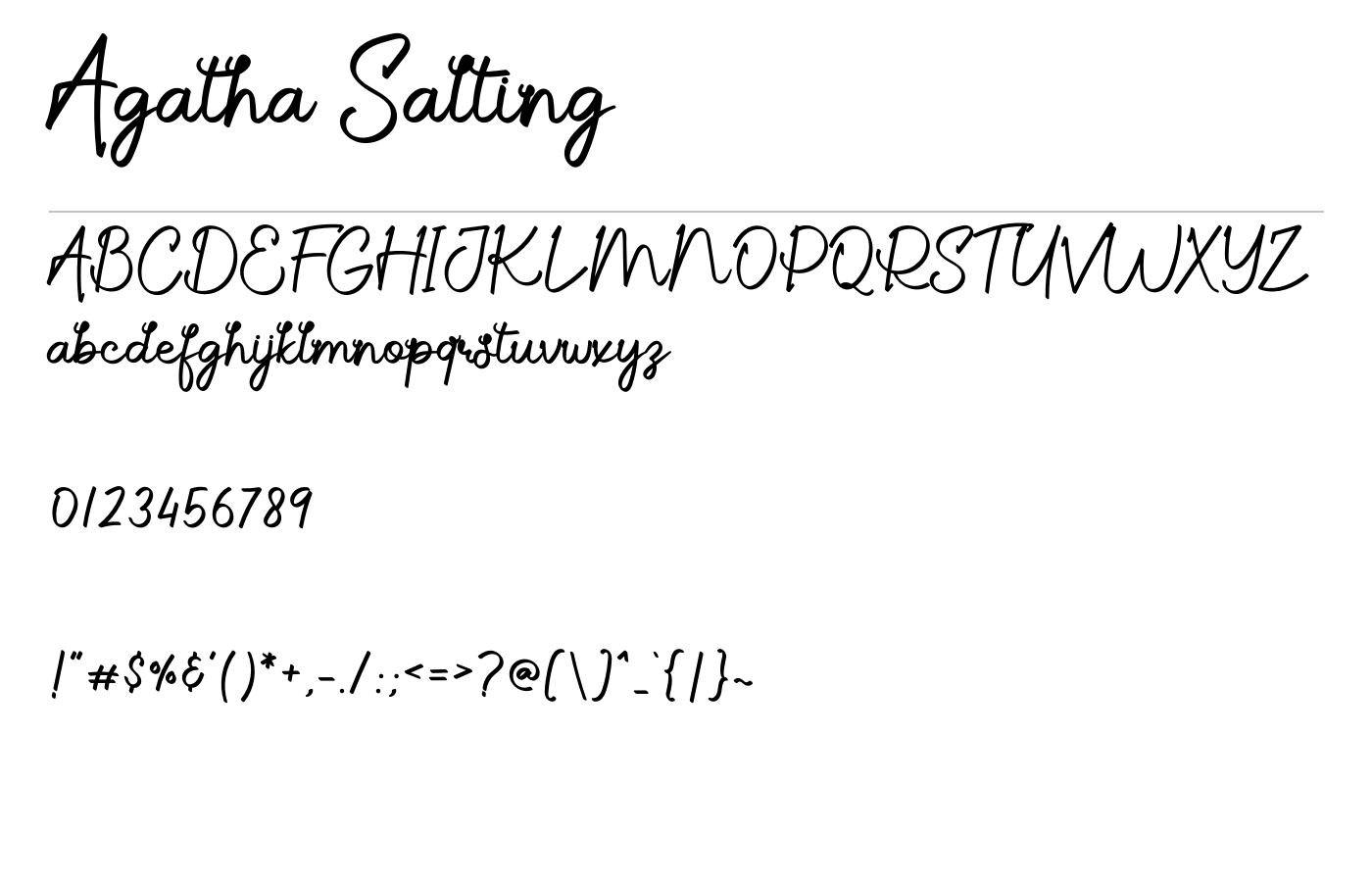
Agatha Salting is a graceful script font with a casual, handwritten feel that combines elegance with warmth. Its slender strokes and playful letterforms make it perfect for personal branding, invitations, and creative projects seeking a friendly yet refined touch. This font works especially well in logos and headlines where a stylish, approachable personality is desired.
Agatha Salting Font
About Agatha Salting Font
| Font family | Agatha Salting Font |
| Designer | Rofiq Soelta |